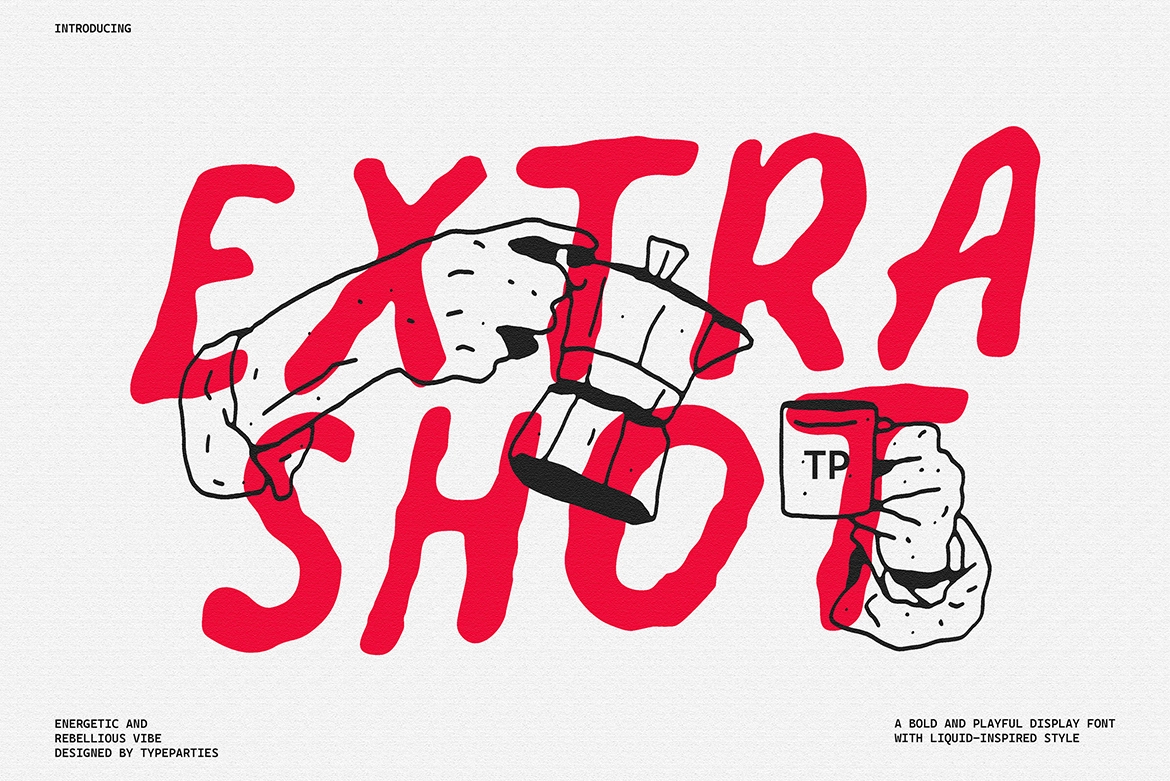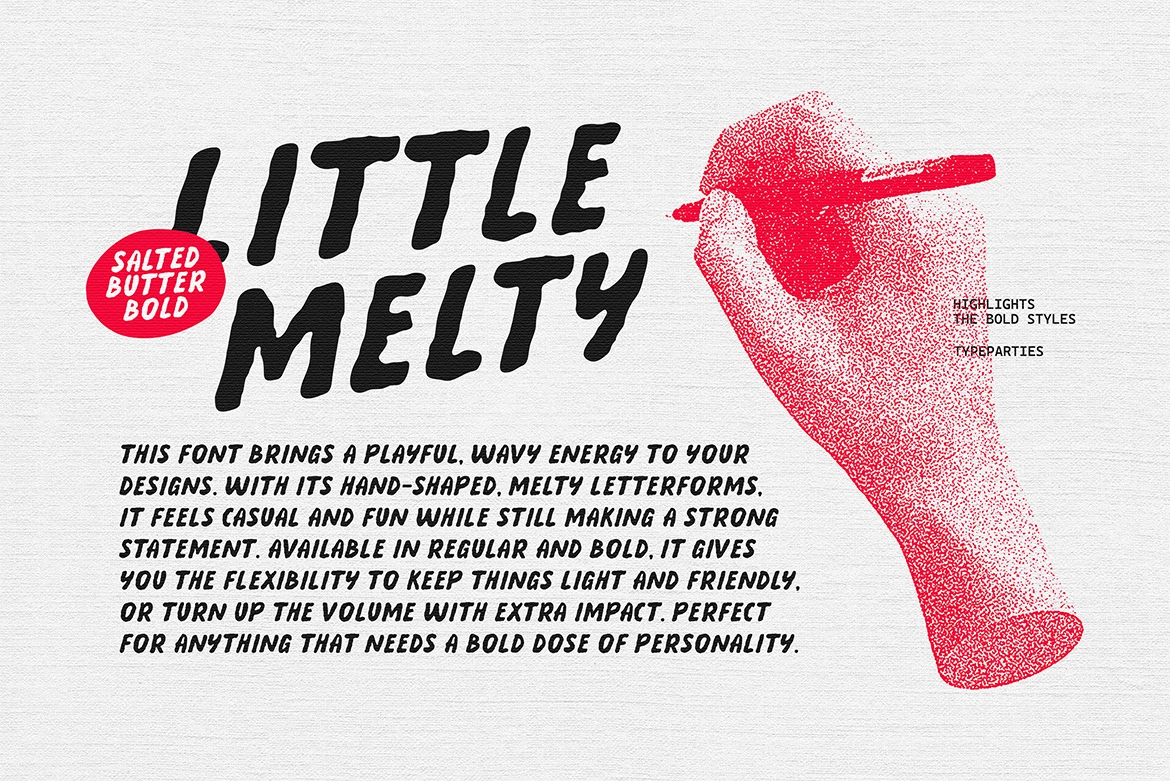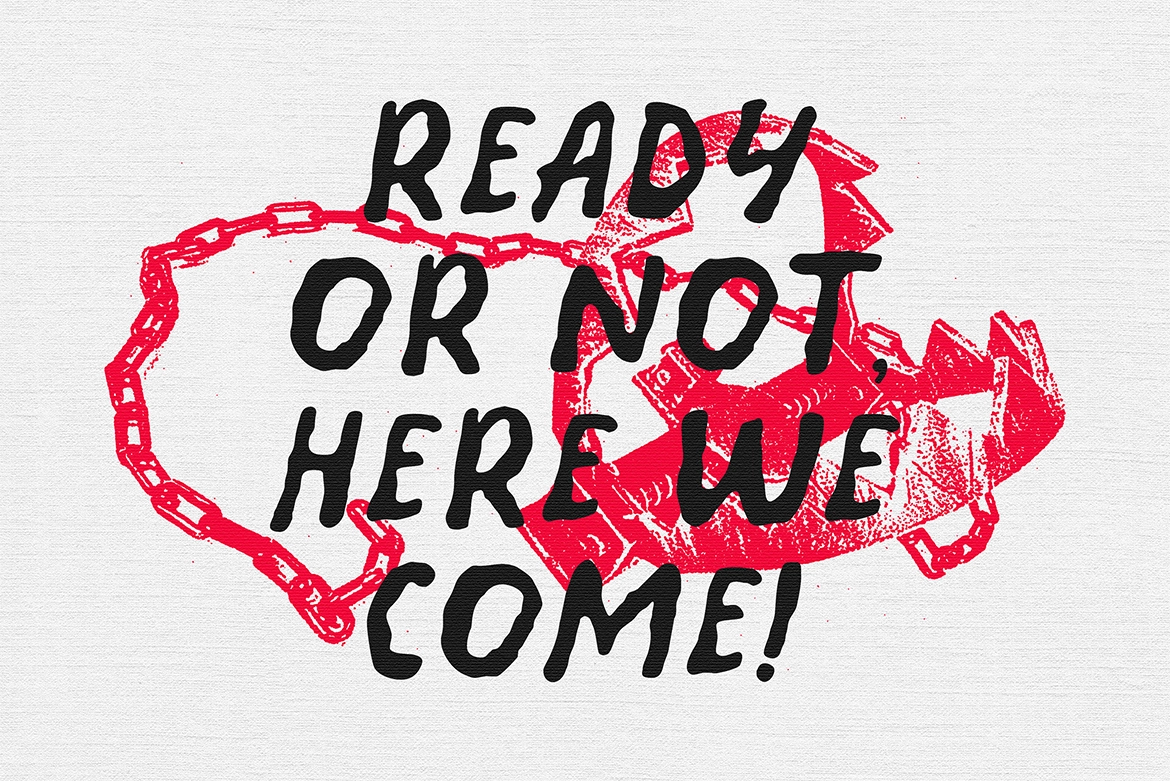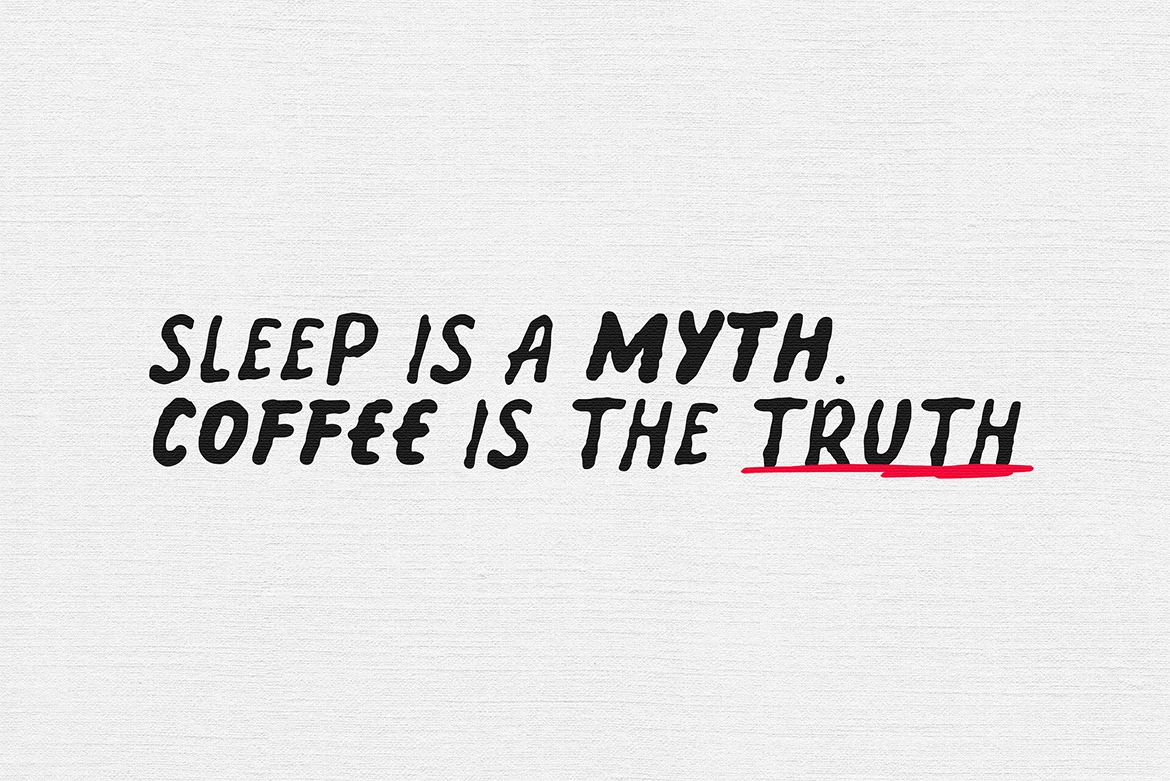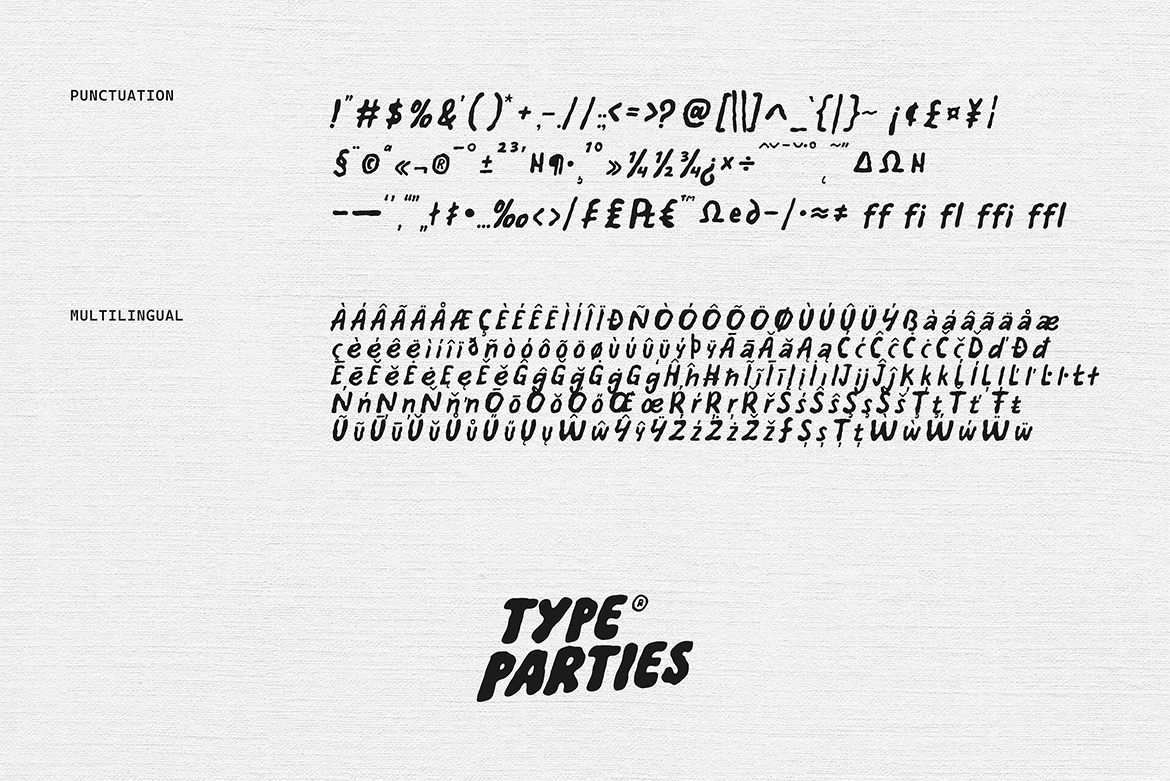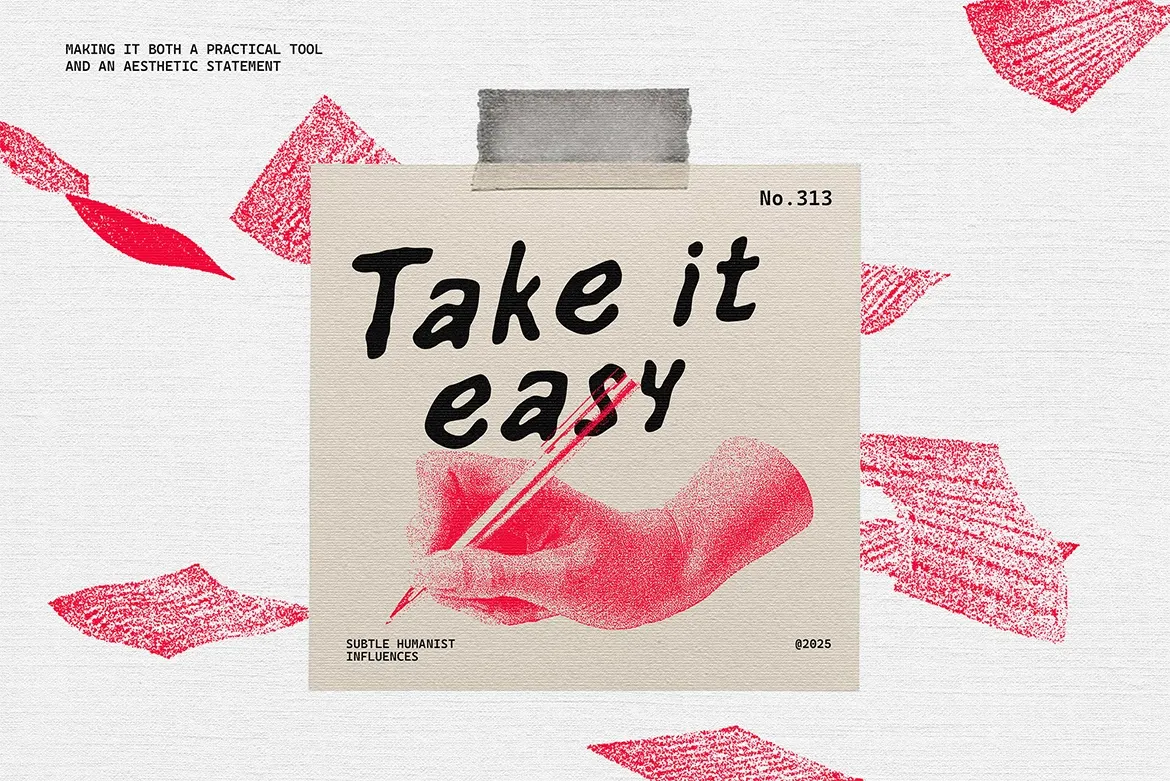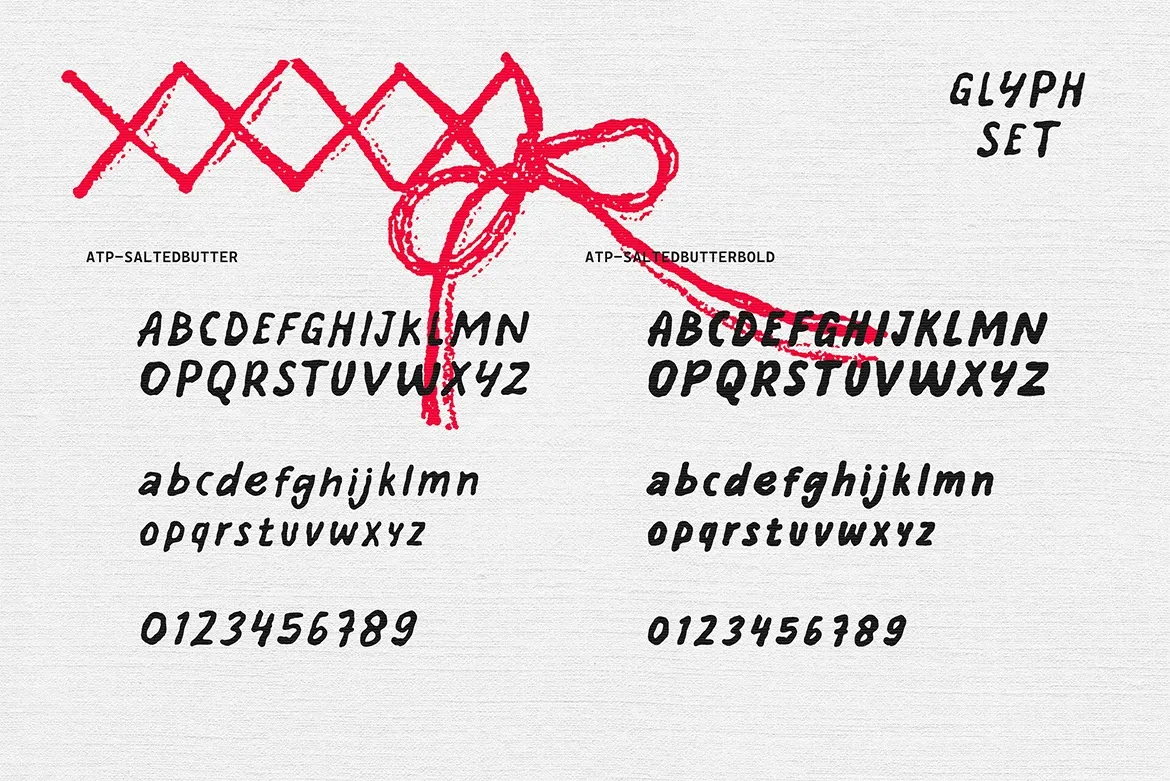
SaltedButter - Organic Brush Font
ATP-SaltedButter
SaltedButter - Organic Brush Font is a bold contemporary display typeface that blends handcrafted irregularity with strong modern presence. Designed to mimic expressive brush strokes, its fluid and slightly wavy letterforms create a natural, organic rhythm that feels spontaneous and full of movement. The subtly distorted shapes add personality and dynamic energy, giving your typography a playful yet confident voice.
Perfect for posters, branding, packaging, social media graphics, and statement headlines, this organic brush font brings creativity, warmth, and bold character to any design that needs impact with a handcrafted touch.